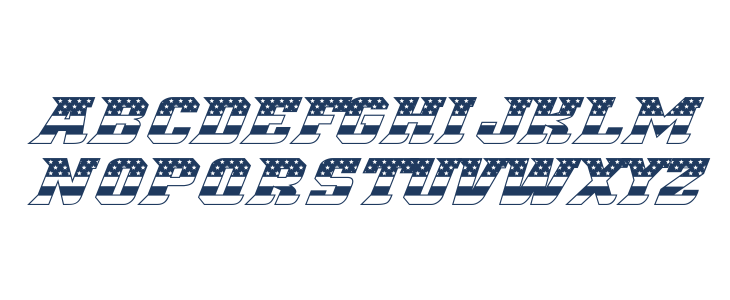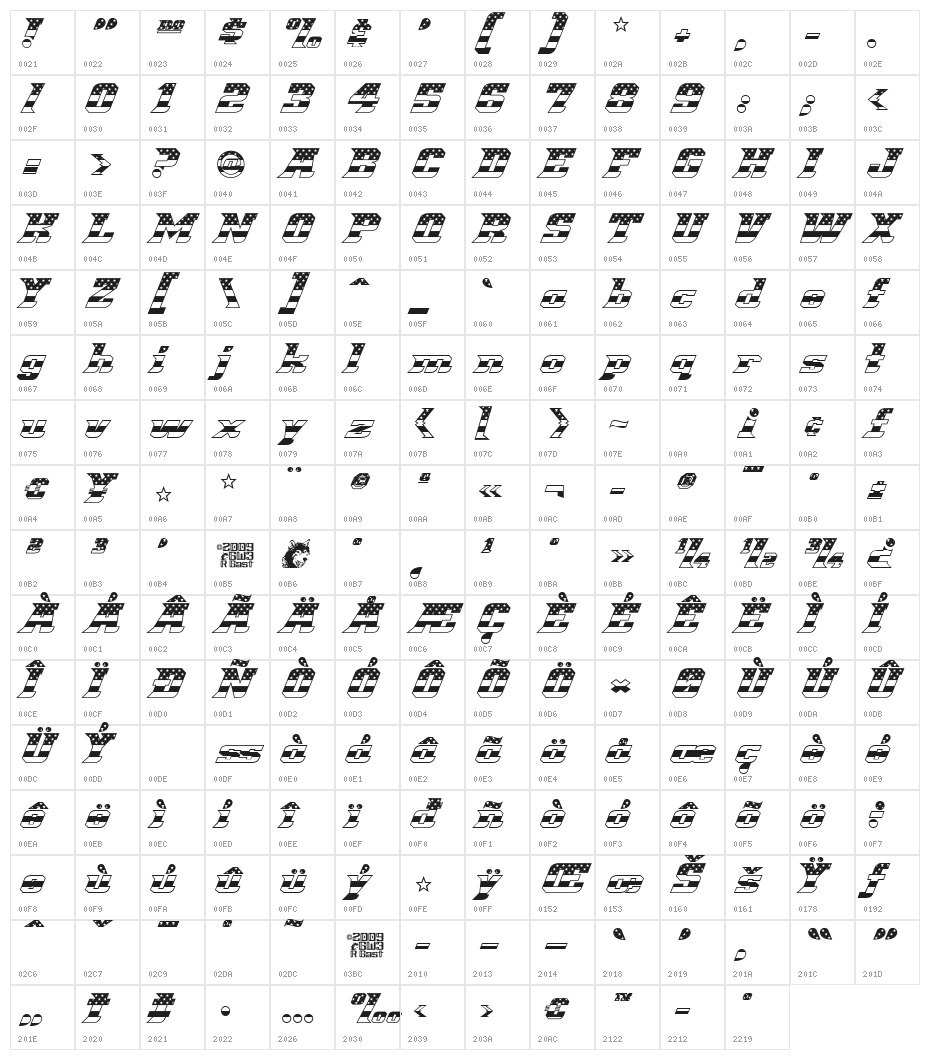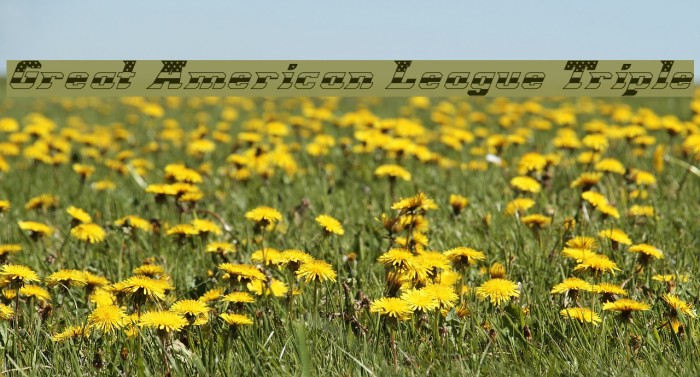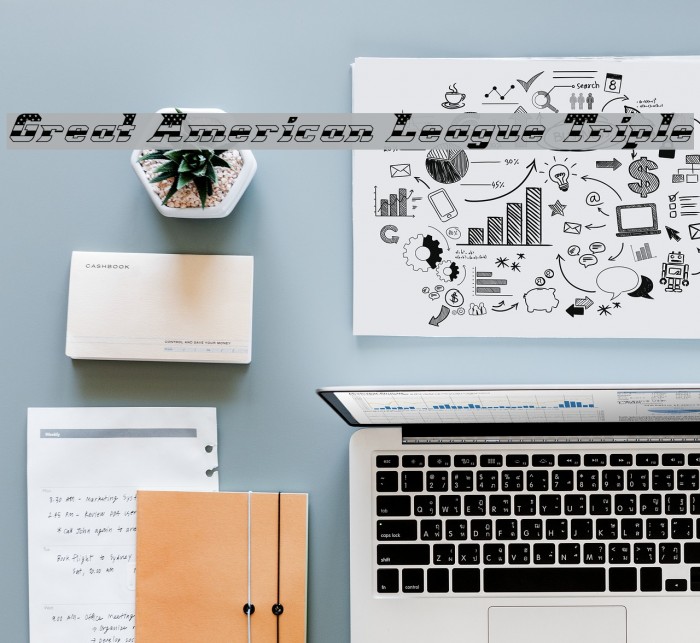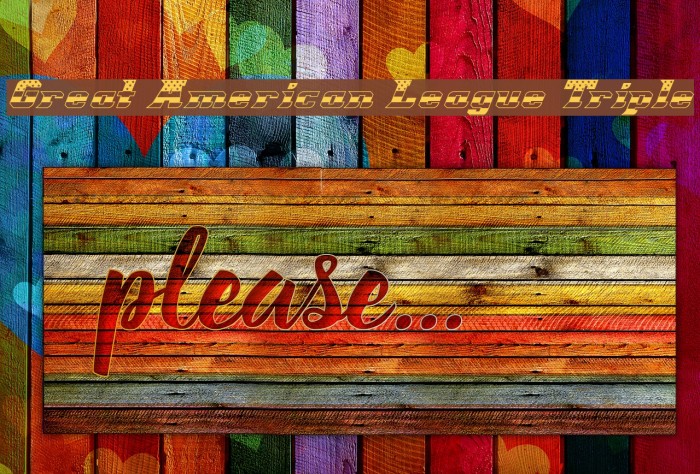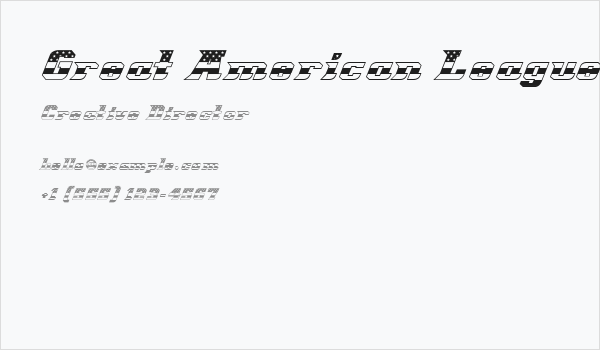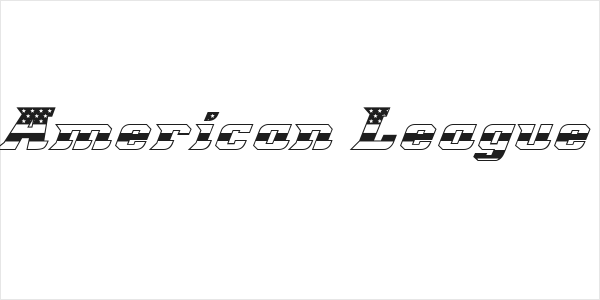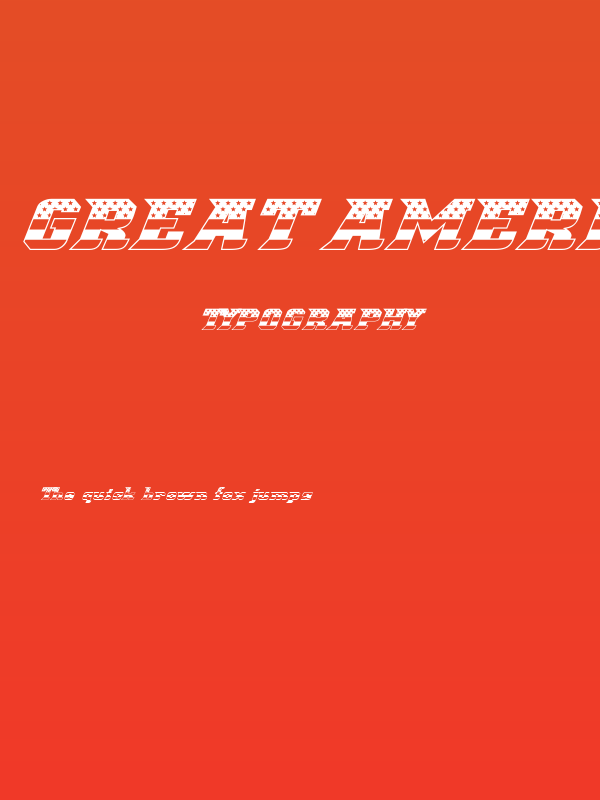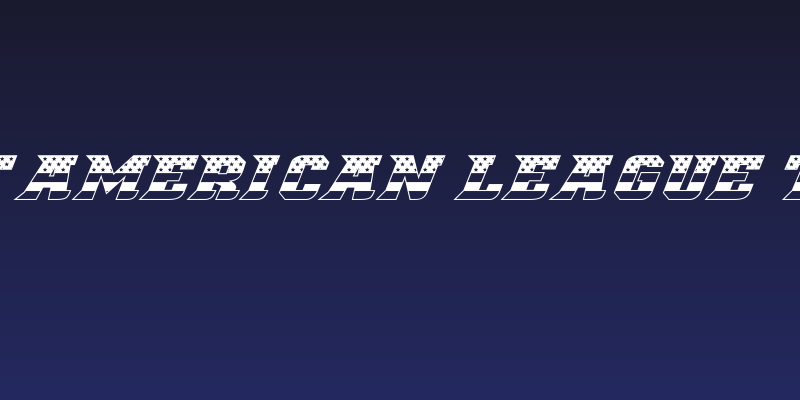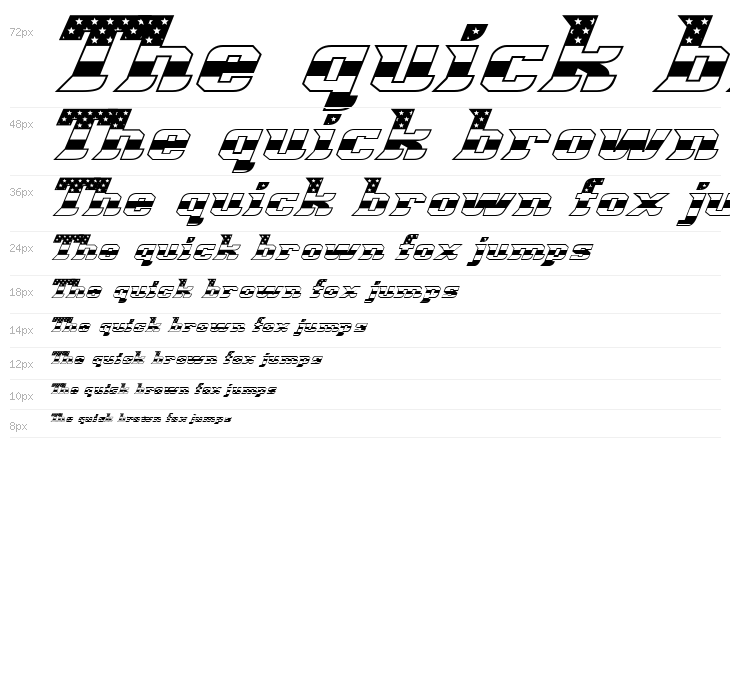
Great American League Triple Font
Great American League Triple Description
This font features a bold, decorative style with a patriotic theme, incorporating stars and stripes reminiscent of the American flag. The uppercase and lowercase letters, as well as numbers, are designed with a strong, angular structure that conveys a sense of movement and energy. The characters are filled with a pattern of stars on the top half and stripes on the bottom, creating a visually striking effect. The font's unique design makes it ideal for projects that require a bold statement or a touch of Americana. The special characters maintain the same thematic elements, ensuring consistency across all glyphs.
| Proposed Projects | Ideal for patriotic-themed posters, sports team branding, event banners, and merchandise designs. |